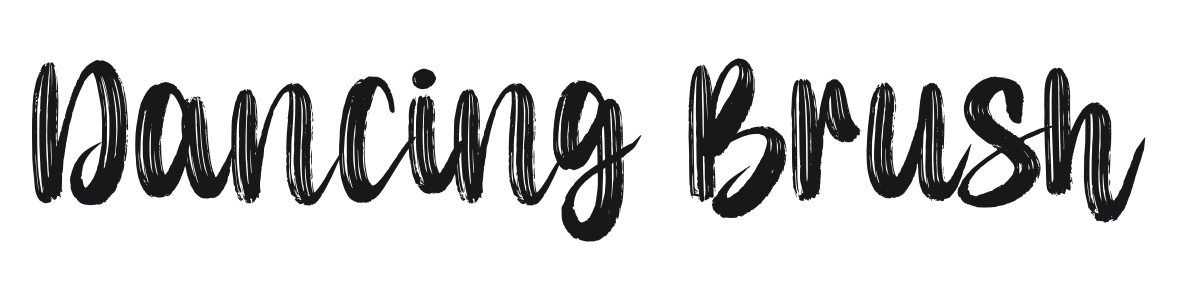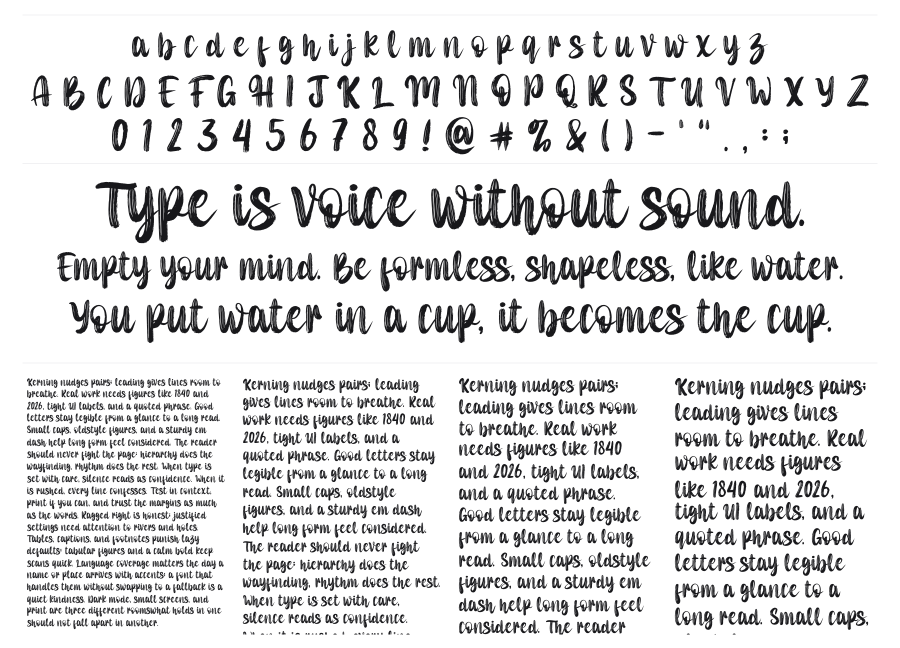
Dancing Brush
Dancing Brush is an expressive brush script with ink-textured strokes and a loose, flowing hand-painted character. Thick downstrokes contrast against wispy upstrokes, with bristle edges that make every word feel freshly inked. It brings a relaxed, artisanal warmth to packaging, social media graphics, and casual branding.